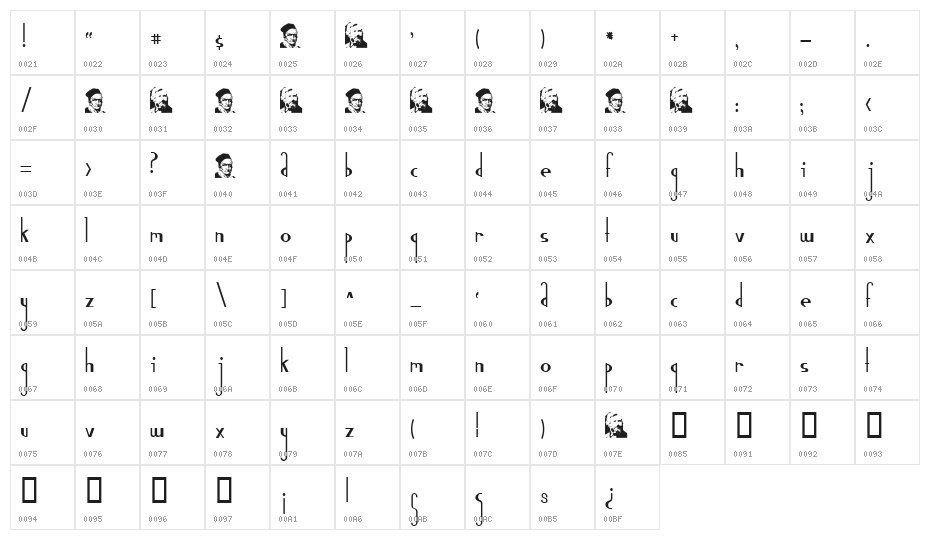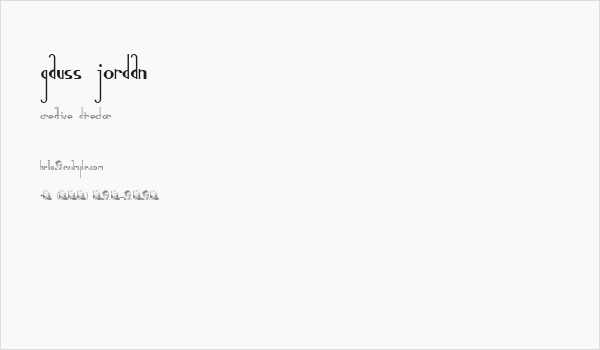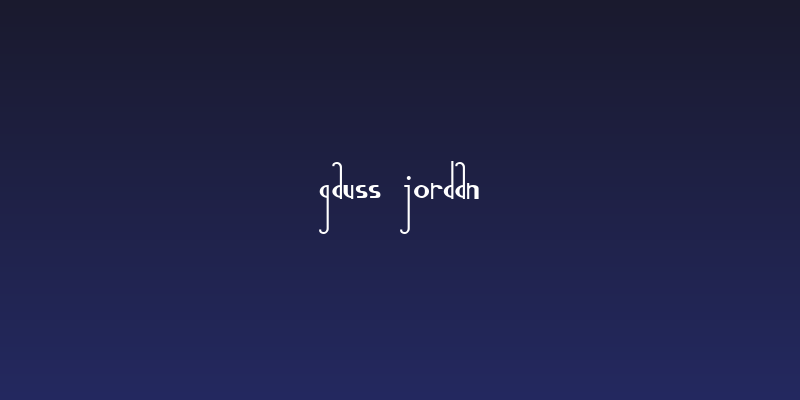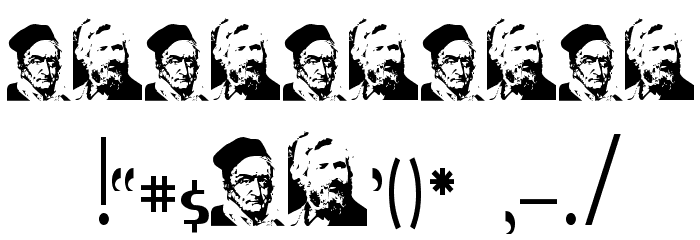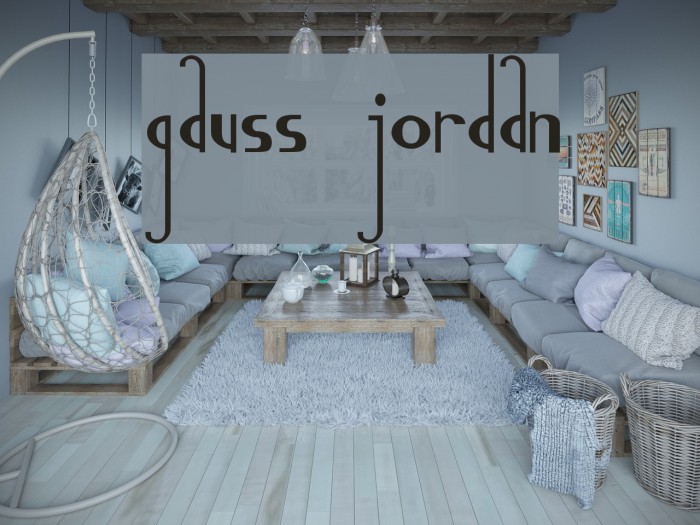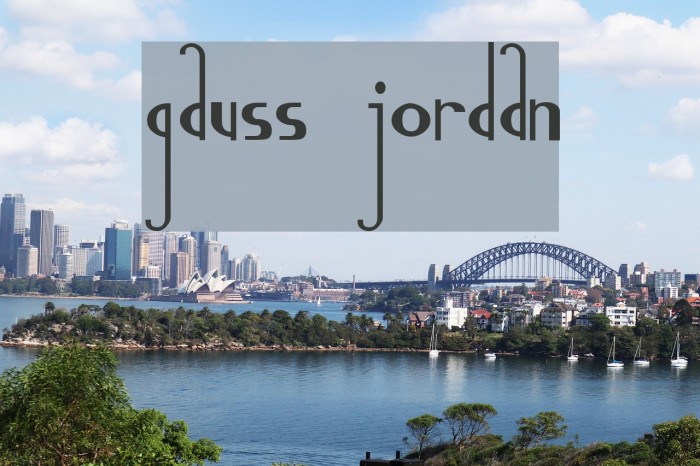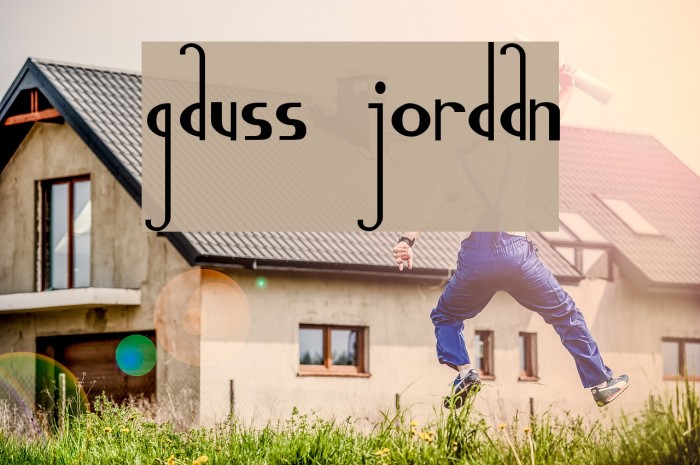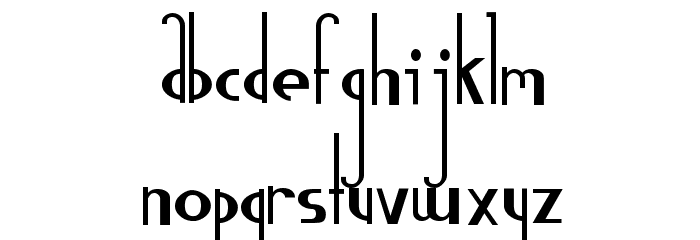
Gauss Jordan Font
Gauss Jordan Description
This font features a unique and artistic design with elongated ascenders and descenders, giving it a distinct and elegant appearance. The characters are crafted with a modern flair, incorporating both sharp and rounded elements that create a harmonious balance. The uppercase and lowercase letters maintain a consistent style, while the numbers and special characters complement the overall aesthetic. The font's design is both eye-catching and versatile, making it suitable for a variety of creative projects. Its artistic nature is further emphasized by the inclusion of stylized portraits, adding a touch of personality and uniqueness.
| Overall Style | Modern, Artistic |
| Use Case | Headlines, Logos, Artistic projects |
| Proposed Projects | Ideal for creative projects such as posters, album covers, branding, and artistic publications. |